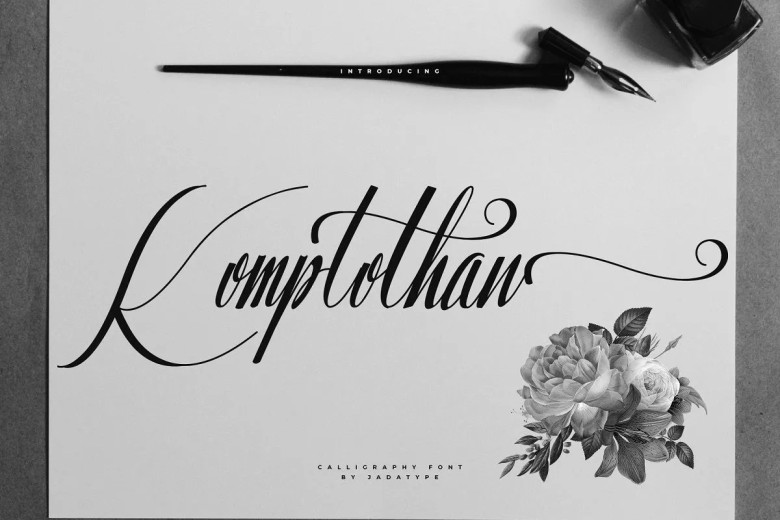
Komplothan Font
Komplothan certainly gives a measure of expressiveness by the font script feature. The typeface suits social media, branding, logotype, merchandise, advertising copy, etc. It contains standard English letters, numbers, punctuation, and quite a few accents for multilingualism.
Komplothan Calligraphy Script Font